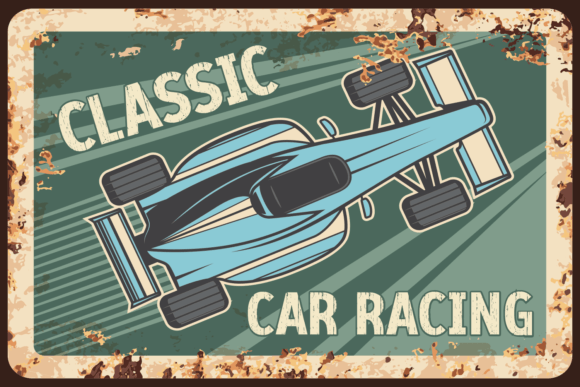
Pattern Vintage Font
Pattern Vintage is a bold and assertive sans serif font. No matter the topic, this font will be an
incredible asset to your fonts’ library, as it has the potential to elevate any
creation.